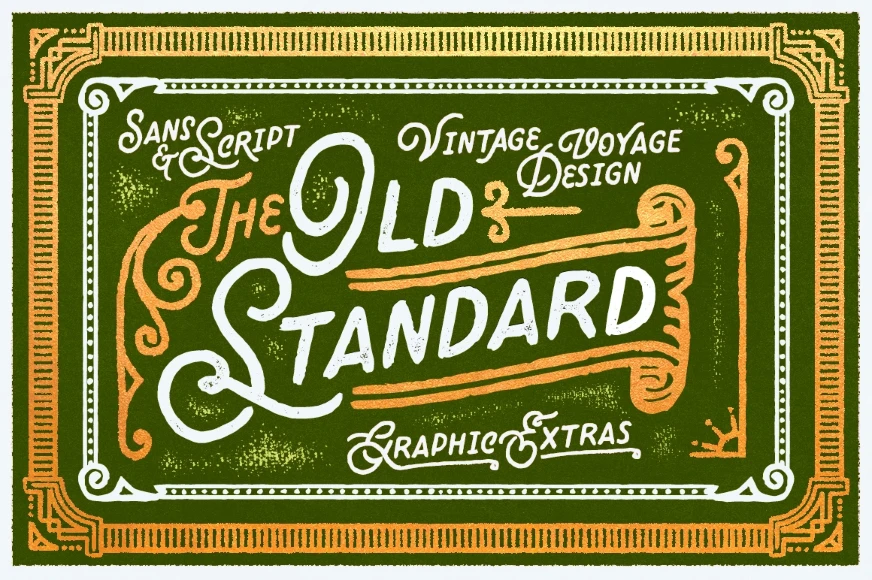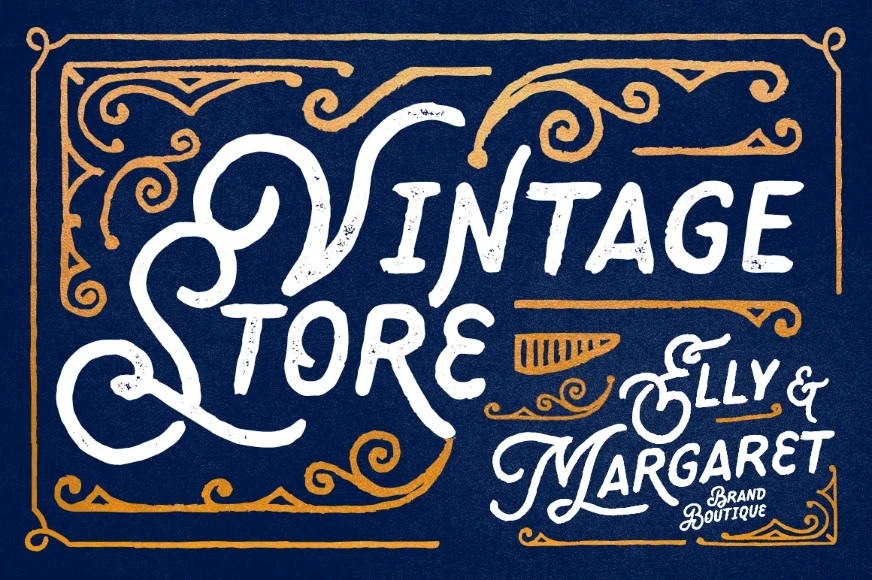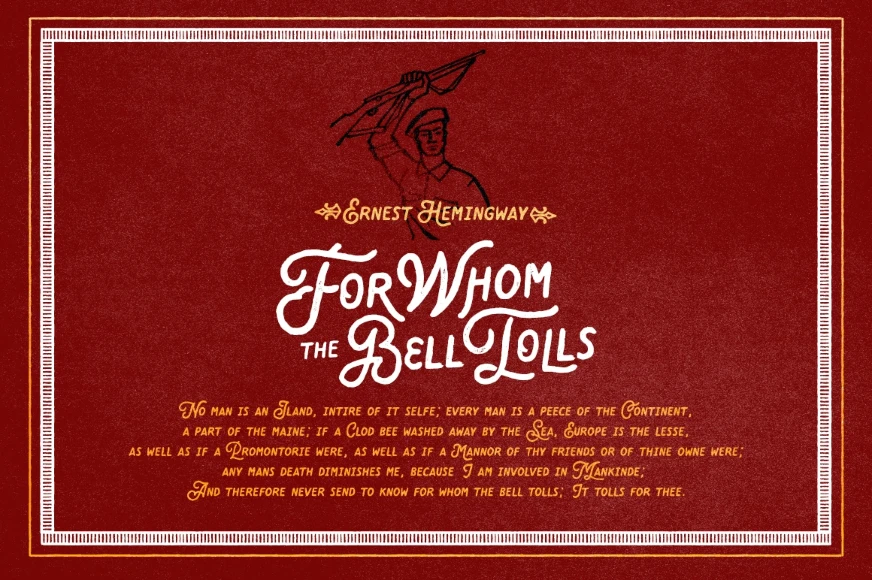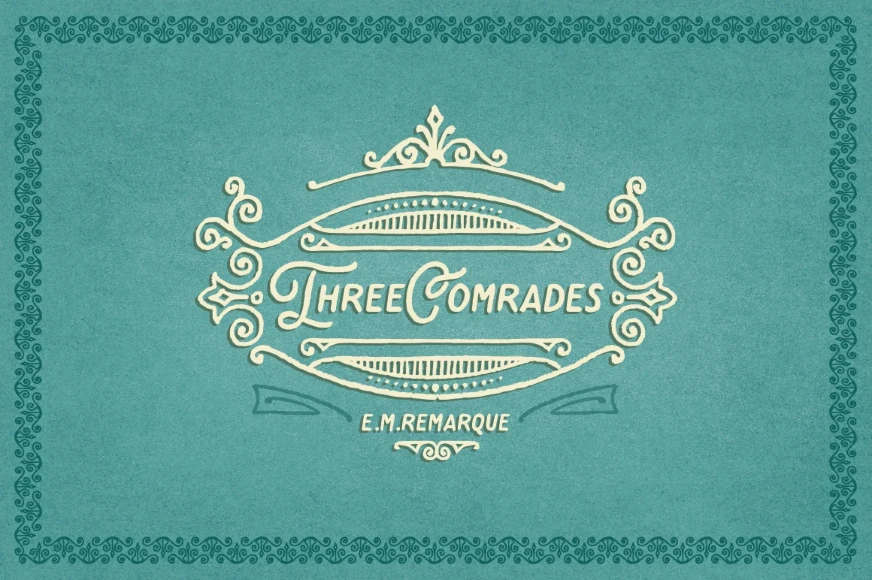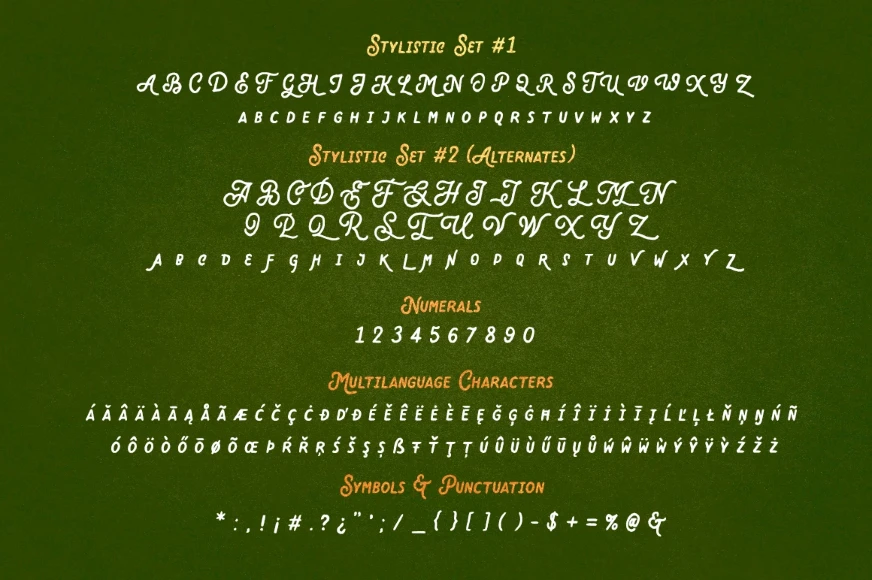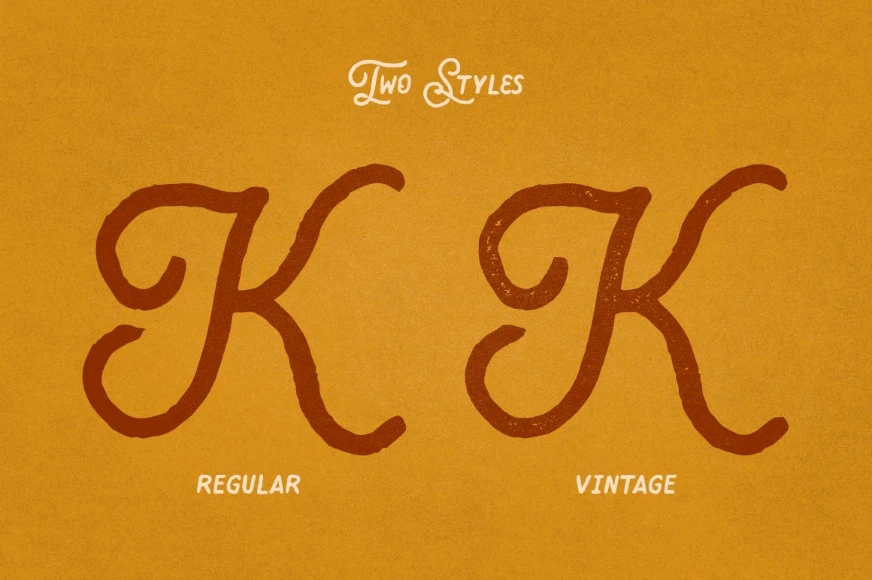
Old Standard
Old Standard Decorate
Old Standard Regular
Old Standard Vintage
This vintage-style font features an imperfect, handcrafted look with script uppercase and sans-serif lowercase letters. Includes two stylistic sets for each character and comes in both regular and vintage styles. Also includes a set of over 70 decorative ornaments for enhancing type compositions, all inspired by classic American heritage design. Ideal for logos, packaging, apparel, posters, and any project seeking a rugged yet refined vintage feel.